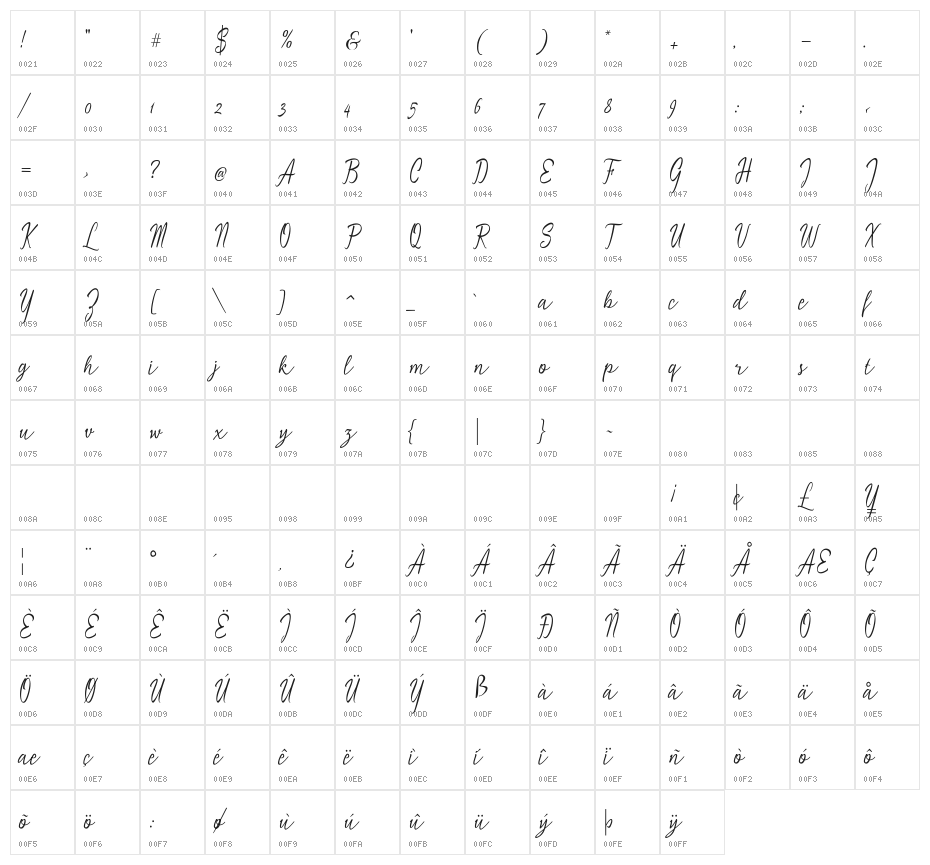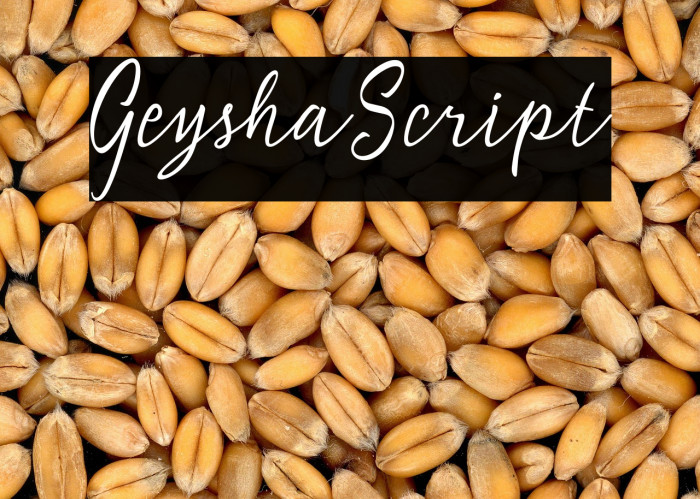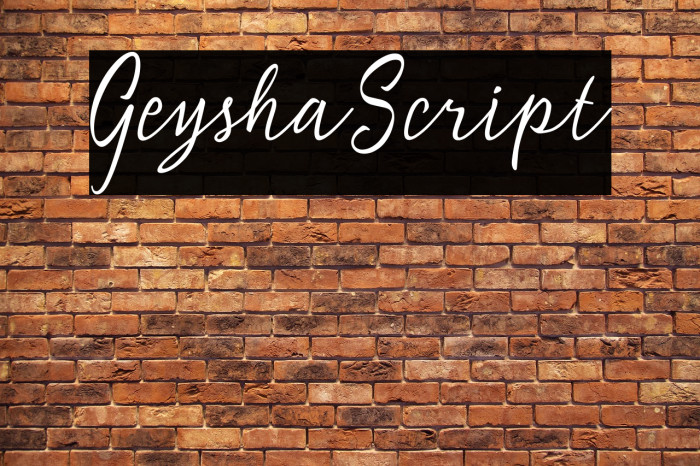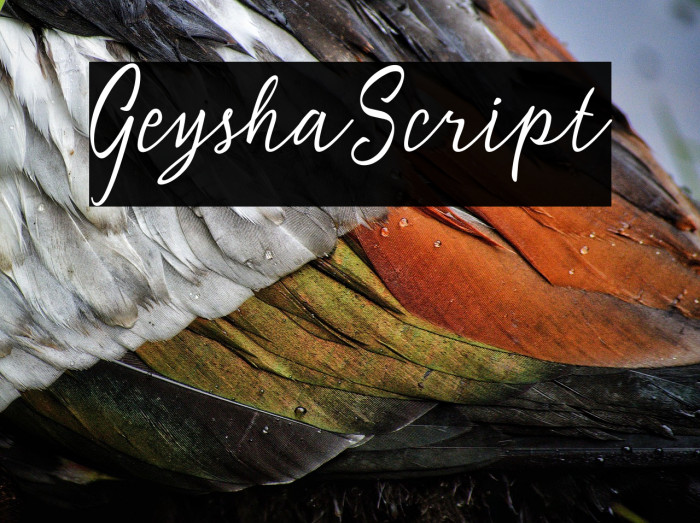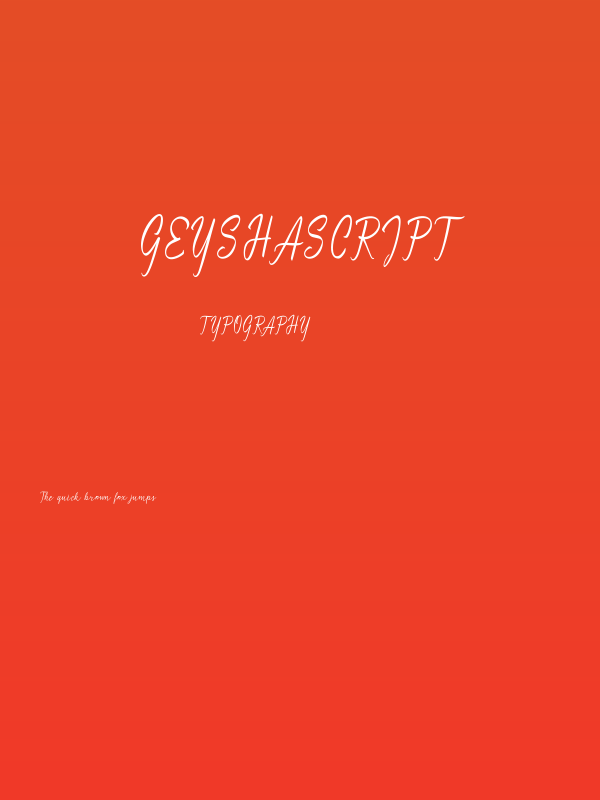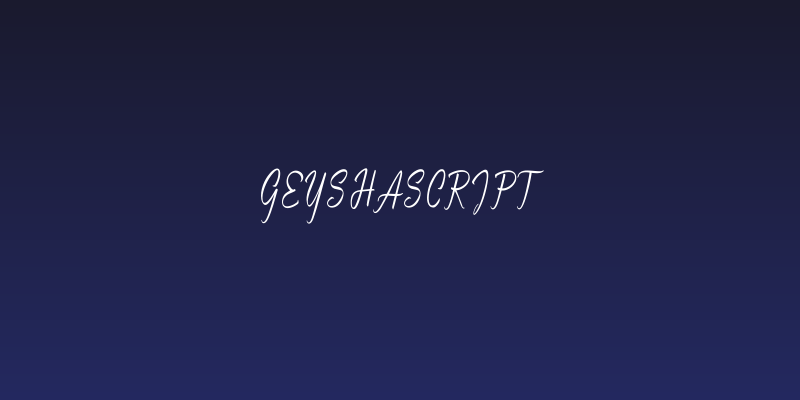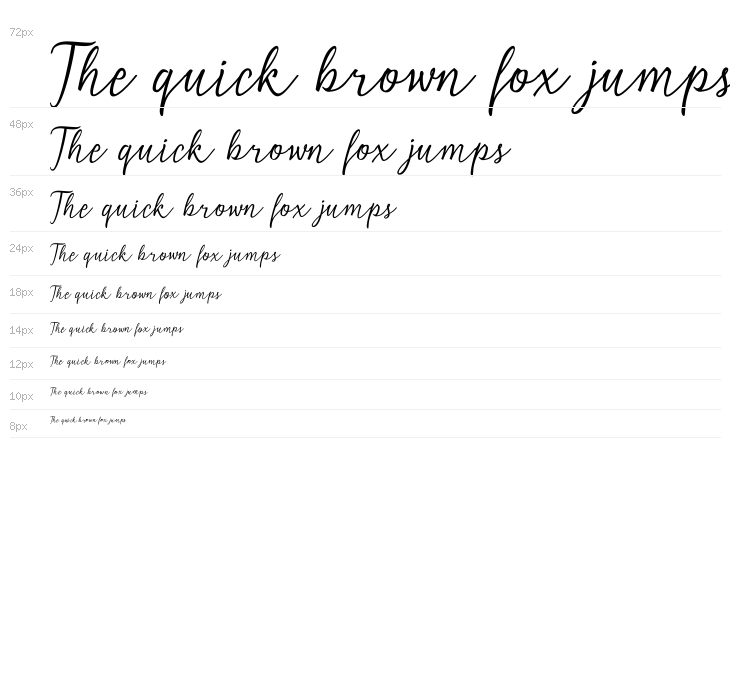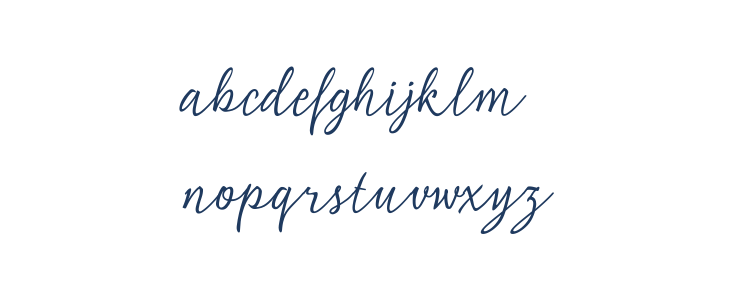
GeyshaScript Font
GeyshaScript Description
This elegant script font features fluid, cursive strokes that emulate the graceful flow of handwriting. The uppercase letters are tall and slightly slanted, with delicate loops and flourishes that add a touch of sophistication. The lowercase letters maintain a consistent style, with smooth connections between characters, enhancing readability while preserving the font's artistic flair. Numbers and special characters are designed to match the overall aesthetic, ensuring a cohesive appearance across all text elements. The font's refined style makes it suitable for projects that require a personal, yet polished touch.
| Overall Style | Elegant |
| Use Case | Logos, Invitations, Decorative text |
| Proposed Projects | Ideal for wedding invitations, greeting cards, branding, and elegant packaging designs. |